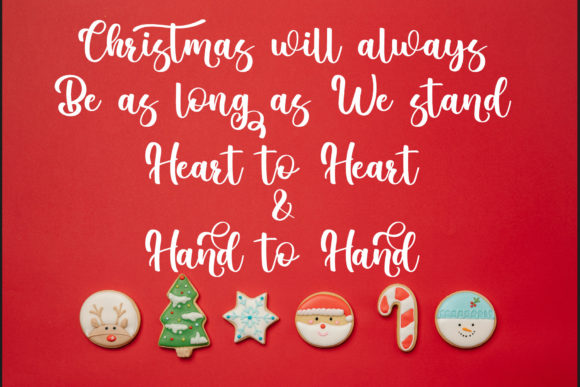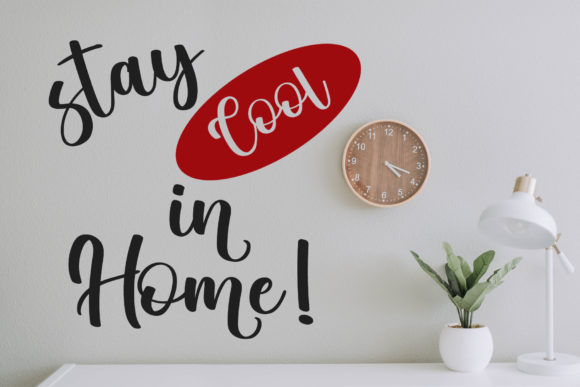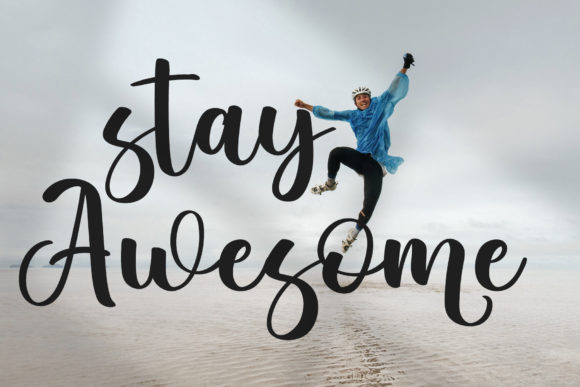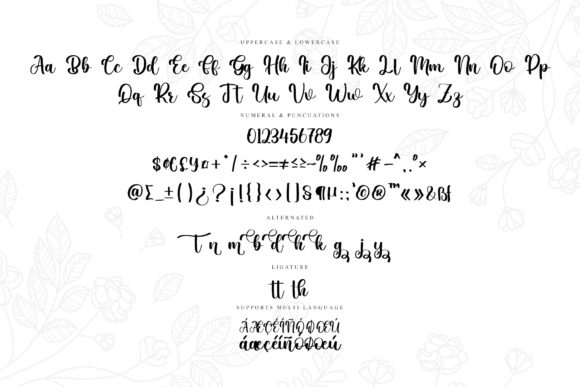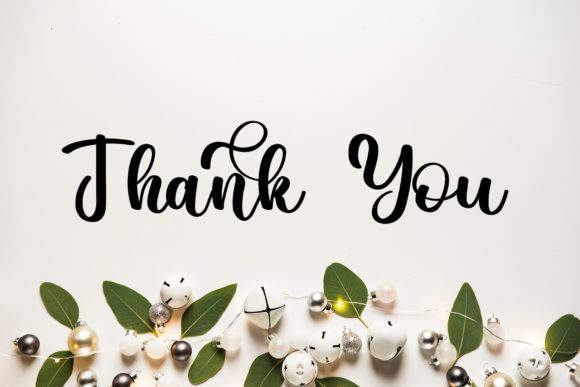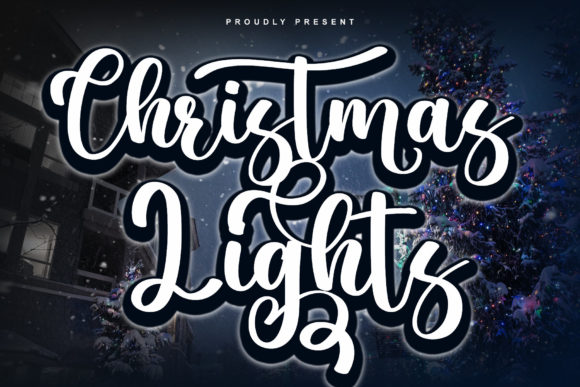
Christmas Lights Font: Add a Touch of Elegance to Your Designs
Are you looking for a font that exudes class, elegance, and modernity? Look no further than Christmas Lights Font! This beautiful script font is perfect for designers and crafters who want to add a touch of sophistication to their projects. In this article, we’ll dive into the features and benefits of Christmas Lights Font, and explore the various ways you can use it to elevate your designs.
What is Christmas Lights Font?
Christmas Lights Font is a refined script font that boasts a classy, elegant, and modern look. Its sleek and sophisticated design makes it perfect for a wide range of applications, from logos and branding to invitations, stationery, wedding designs, social media posts, and more. The font’s versatility and flexibility make it an excellent choice for designers and crafters who want to create stunning visual content.
Key Features of Christmas Lights Font
- Elegant and Modern Design: Christmas Lights Font features a beautiful, flowing script design that is both elegant and modern. Its refined look makes it perfect for high-end designs and projects that require a touch of sophistication.
- Versatile and Flexible: This font can be used for a wide range of applications, from logos and branding to invitations, stationery, wedding designs, social media posts, and more.
- Easy to Read and Write: Christmas Lights Font is designed to be easy to read and write, making it perfect for body text and headlines.
- Supports Multiple Languages: This font supports multiple languages, making it a great choice for designers and crafters who work with international clients or want to create content for a global audience.
Benefits of Using Christmas Lights Font
So, why should you choose Christmas Lights Font for your designs? Here are just a few benefits of using this beautiful script font:
- Adds a Touch of Elegance: Christmas Lights Font adds a touch of elegance and sophistication to any design, making it perfect for high-end projects and applications.
- Stand Out from the Crowd: With its unique and refined design, Christmas Lights Font can help your designs stand out from the crowd and grab attention.
- Perfect for Branding and Marketing: This font is perfect for branding and marketing applications, as it helps to create a professional and cohesive visual identity.
- Easy to Use and Customize: Christmas Lights Font is easy to use and customize, making it perfect for designers and crafters of all skill levels.
Creative Ways to Use Christmas Lights Font
So, how can you use Christmas Lights Font in your designs? Here are a few creative ways to get you started:
- Logos and Branding: Use Christmas Lights Font to create a professional and cohesive visual identity for your brand.
- Invitations and Stationery: Add a touch of elegance to your invitations and stationery with this beautiful script font.
- Wedding Designs: Christmas Lights Font is perfect for wedding designs, including invitations, programs, and more.
- Social Media Posts: Use this font to create stunning social media posts that grab attention and drive engagement.
- Packaging and Product Design: Add a touch of sophistication to your packaging and product design with Christmas Lights Font.
In conclusion, Christmas Lights Font is a beautiful and refined script font that is perfect for designers and crafters who want to add a touch of elegance and sophistication to their designs. With its versatile and flexible design, this font can be used for a wide range of applications, from logos and branding to invitations, stationery, wedding designs, social media posts, and more. Whether you’re looking to create high-end designs or simply want to add a touch of class to your projects, Christmas Lights Font is an excellent choice.